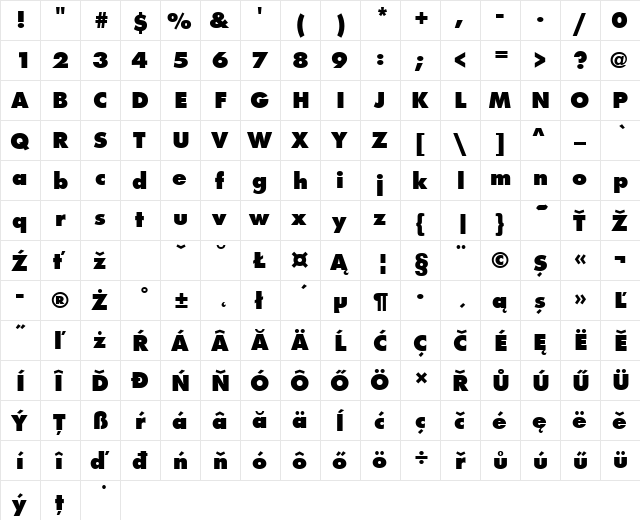
FuturaTEEExtBol Regular
Design Context for FuturaTEEExtBol Typeface
FuturaTEEExtBol channels digital-age aesthetics through its sharp, structured letterforms — ideal for brands that want to signal innovation.
Pro Tip: Try FuturaTEEExtBol with generous letter-spacing in UI labels and navigation — the geometric forms benefit from room to breathe.